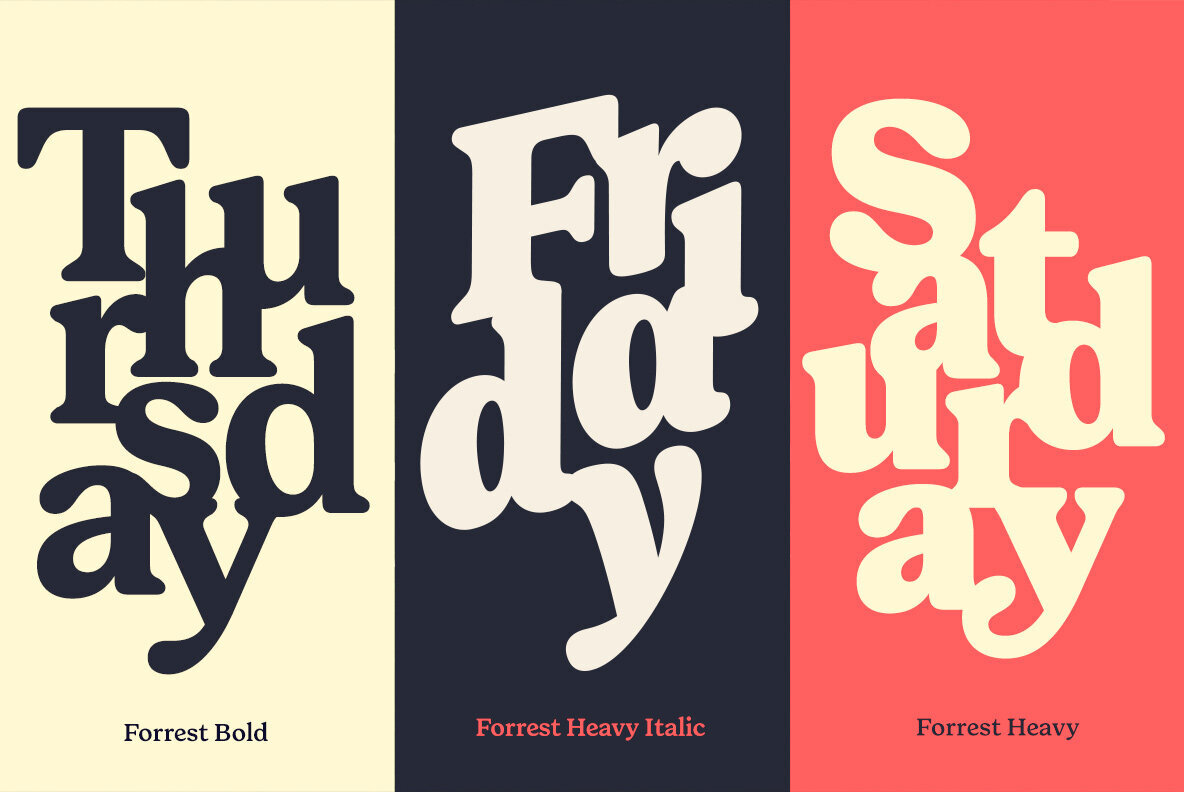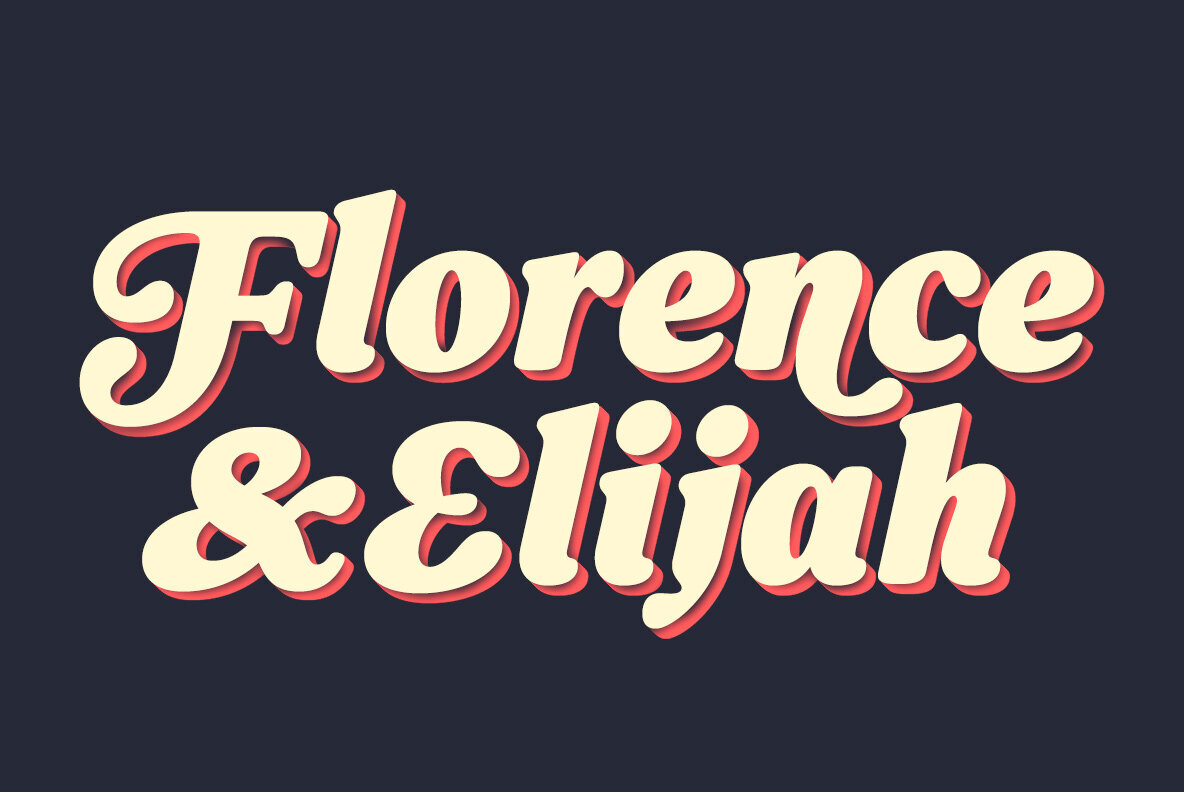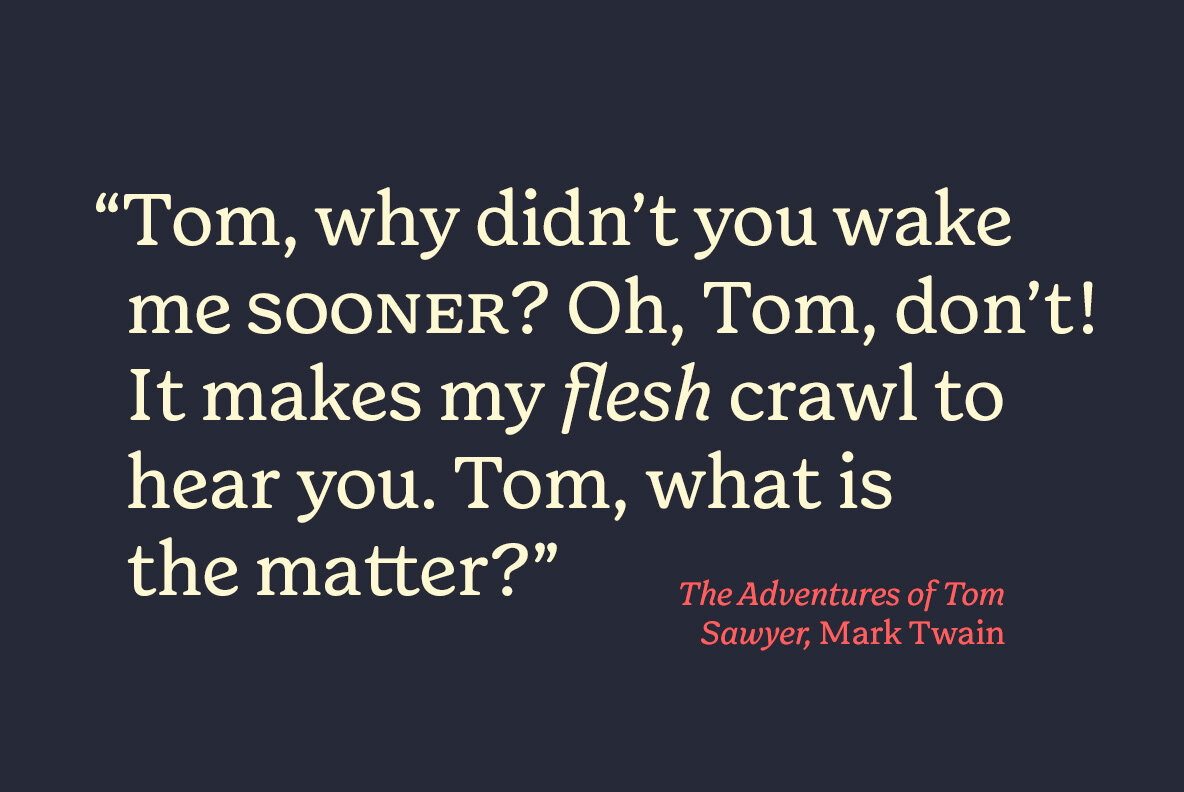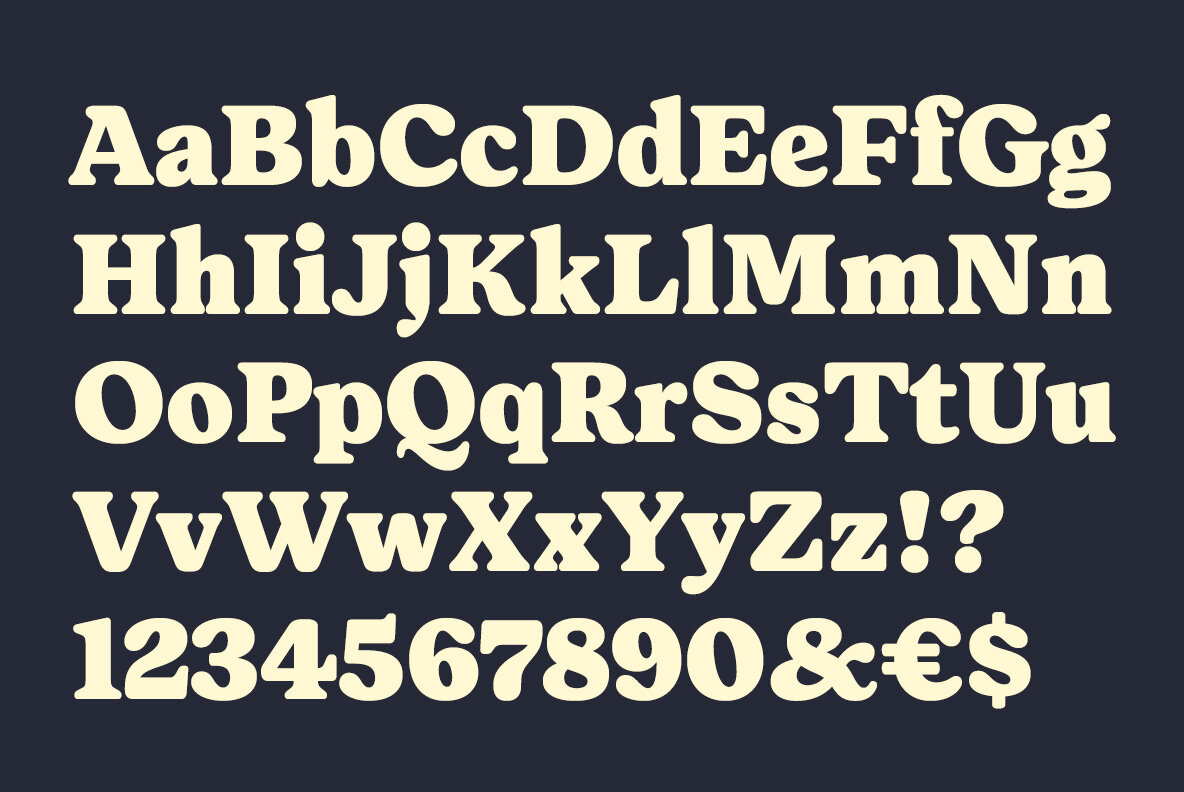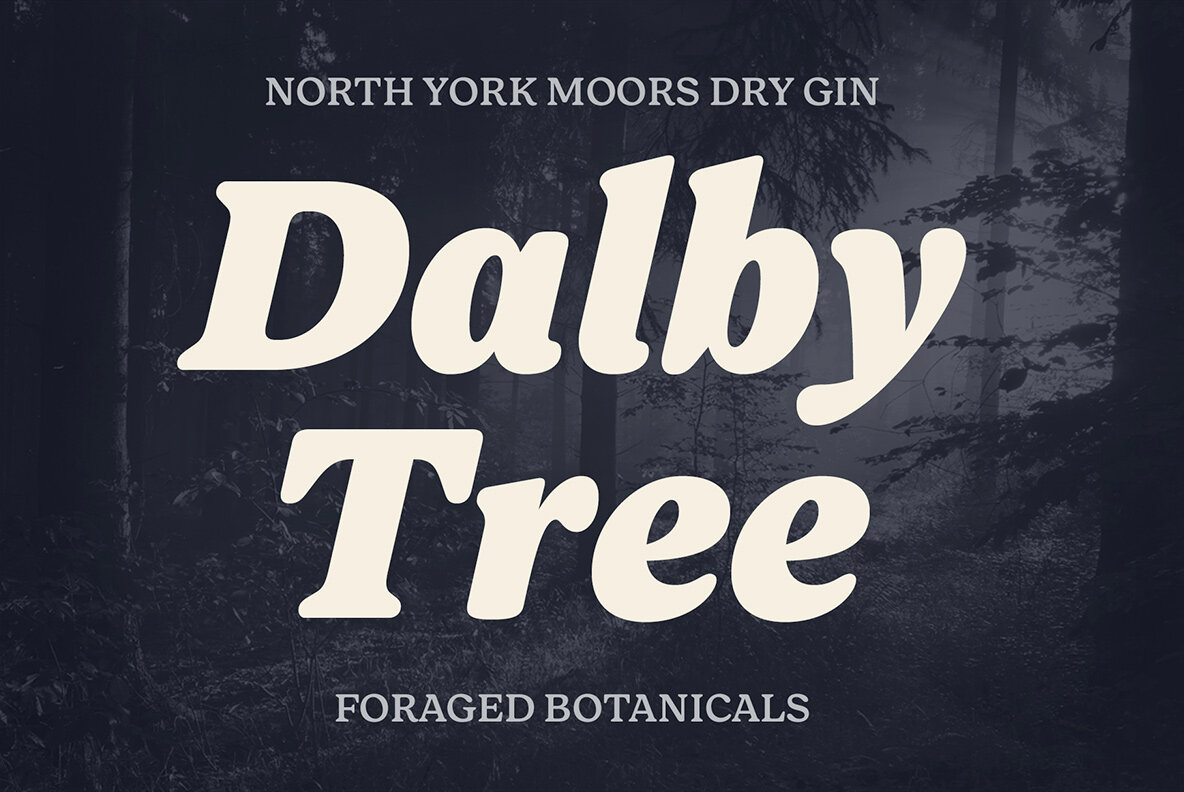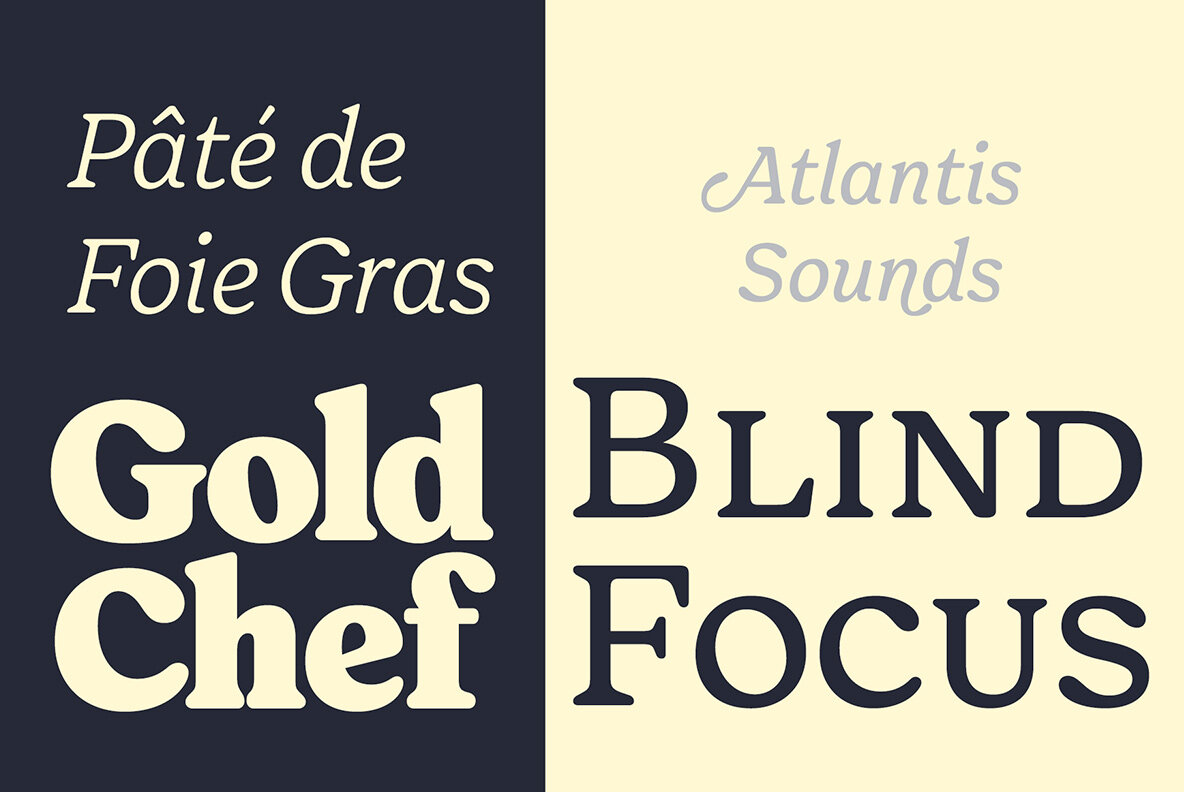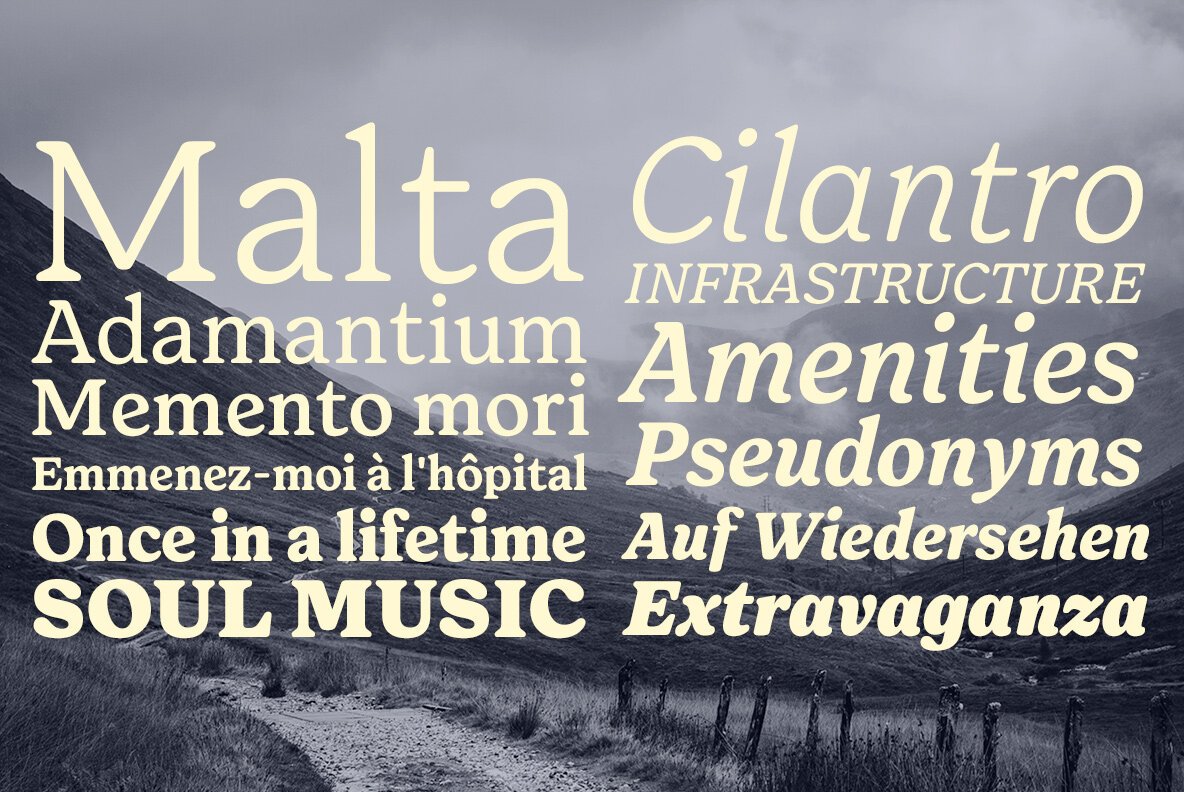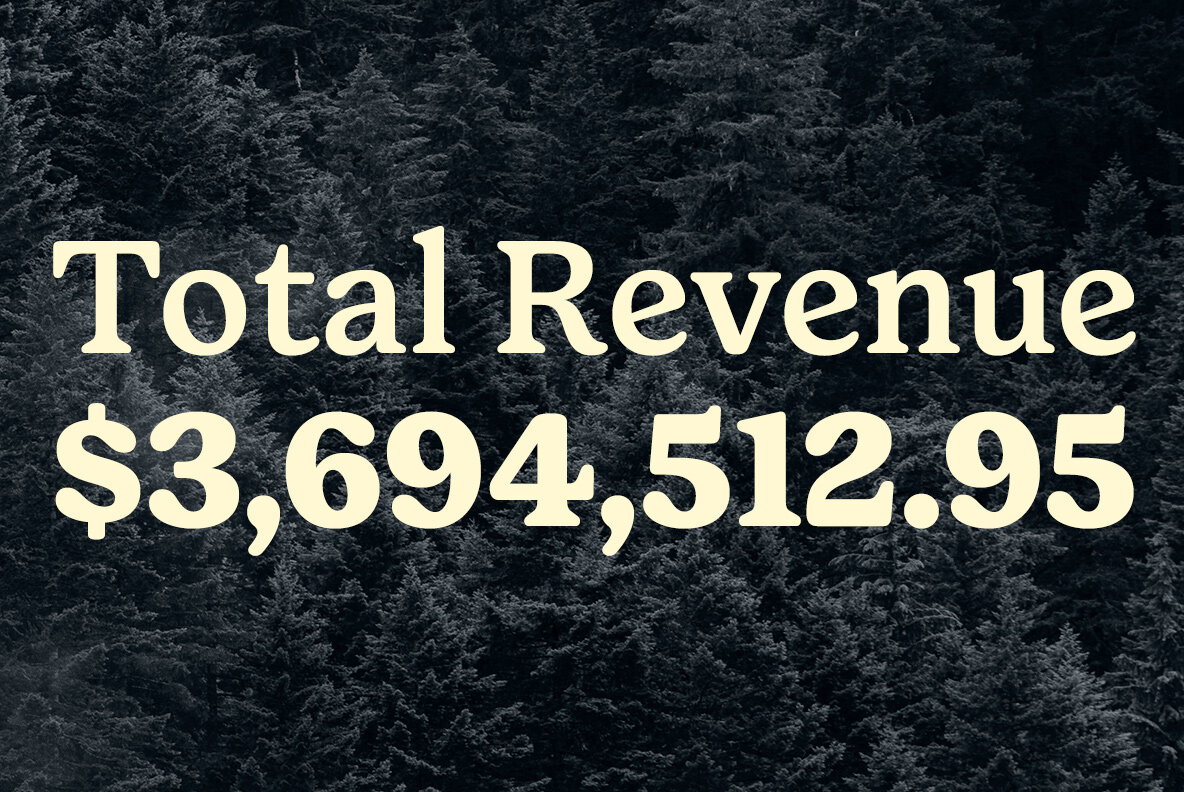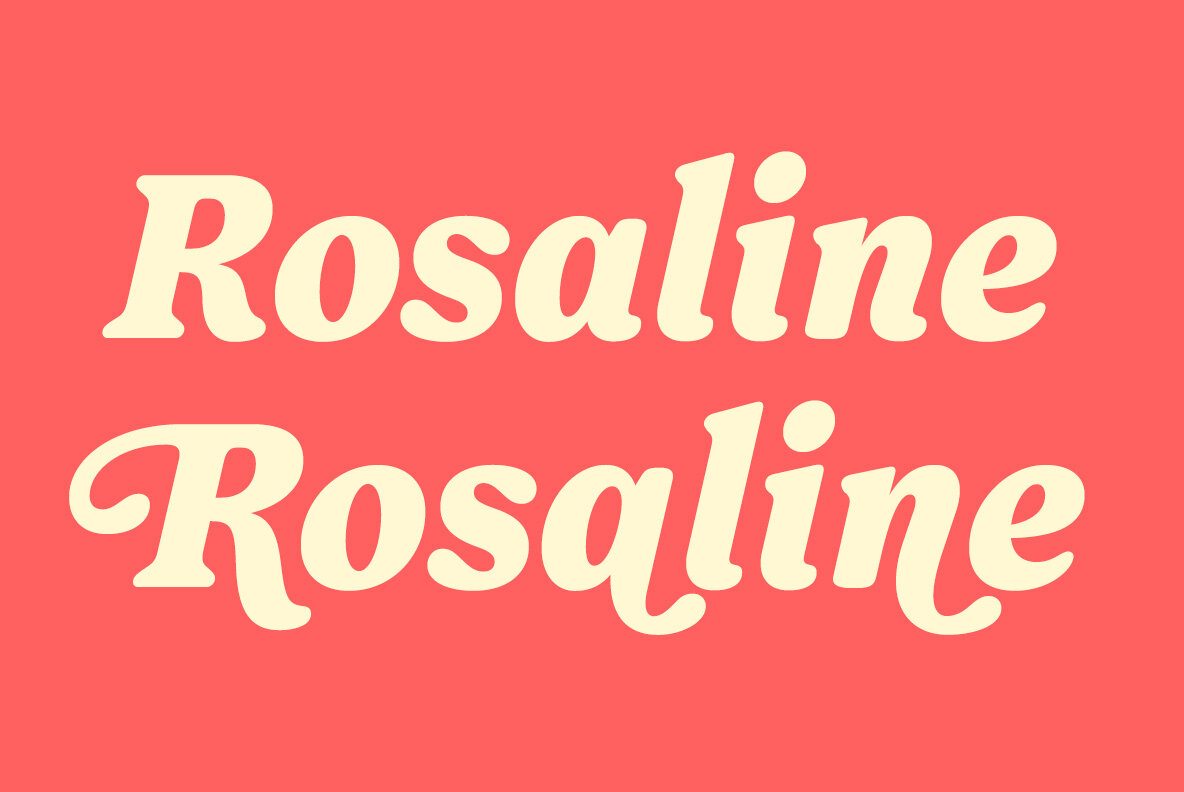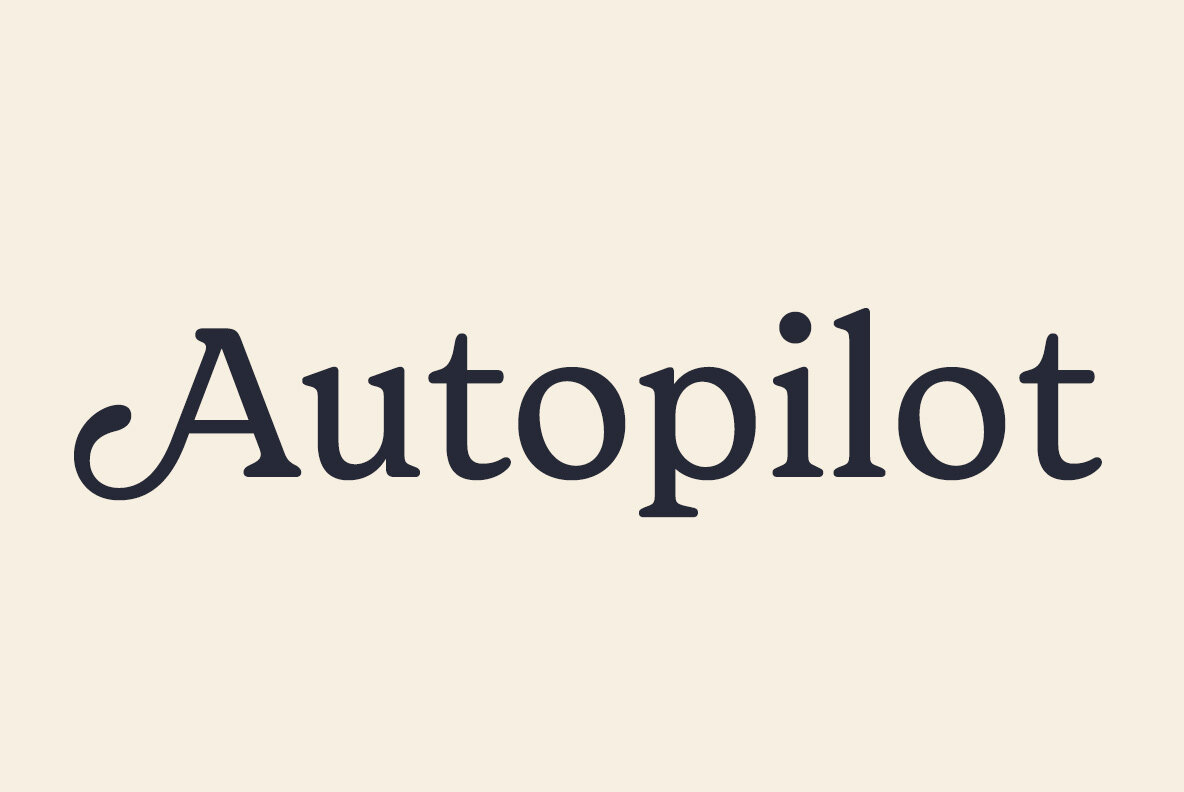
Forrest Font
Typographers — and clients alike — are often obsessed with novelty. Be it self-consciously peculiar details with made-you-look appeal — or just austere, detached minimalism, constant seek for novelty in typography often becomes an end in itself. A lot of times, an old trick is better than a bagful of new ones — all you might actually need would be a good, reliable font family with soul, providing that comforting, familiar feel. This is where Forrest comes in: a type family born out of a lifelong passion for digging into old archives of fonts, in search for that good ol’ type — simple, honest, made with love.
But make no mistake, Forrest is as savvy as fonts come, packed with smart features. Handsome swashes, cute small capitals and old style figures all add a bit of flair and enable a highly sophisticated and contemporary approach to typography.